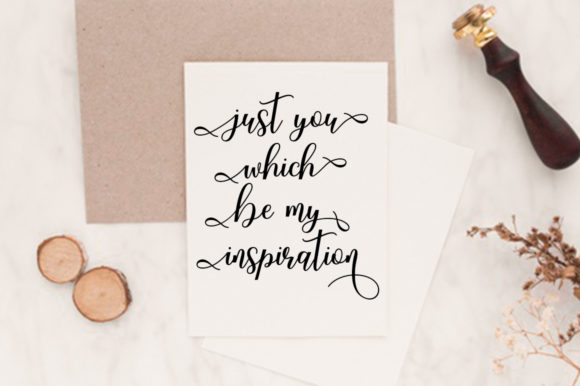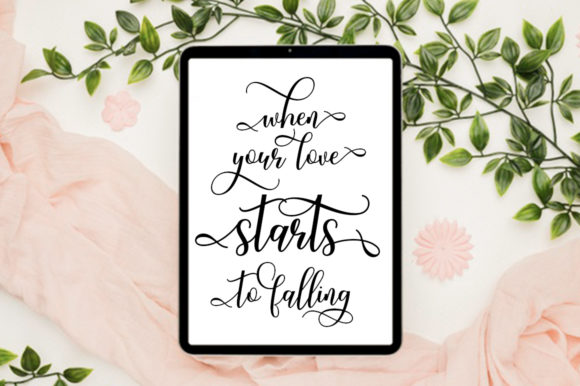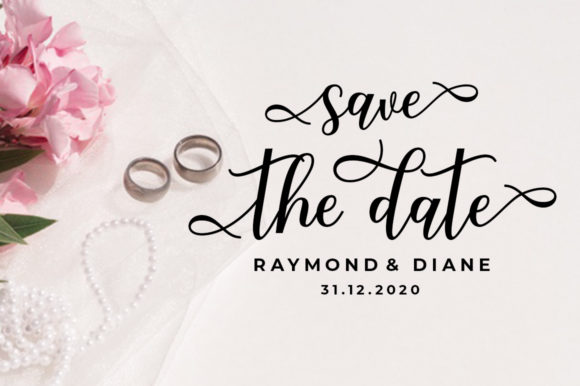
Introduction to Meidarni Font
Meidarni is a beautiful handwritten font.
It features a wealth of special features including alternate glyphs and ligatures Fall in love with its authentic feel and use it to create gorgeous wedding invitations, beautiful stationary art, eye-catching social media posts, and cute greeting cards.